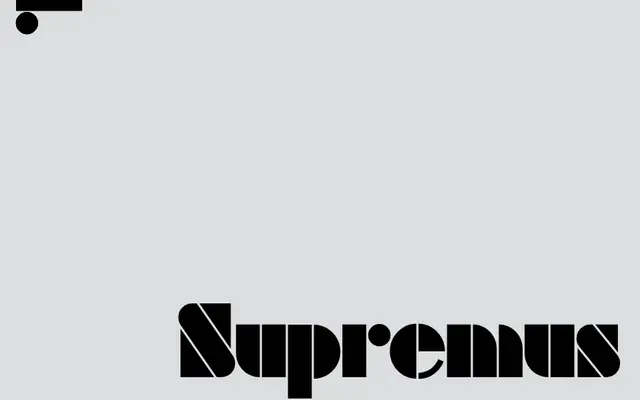
LL Supremus
Lineto · Pablo Desportes · 2024
LL Supremus specimen from Lineto
A strictly geometric, modular stencil display typeface in two cuts, designed by Pablo Desportes as a graphic companion to LL Supreme, drawing on Constructivist and Bauhaus precedents.
Where Futura Black makes optical concessions to legibility, LL Supremus-A strips those back to pure geometry with a narrow 22-unit stencil bridge for maximum impact at large sizes; LL Supremus-B reintroduces Renner's curvature logic with a 44-unit bridge for regular headline use down to smaller display sizes. Both cuts cover Latin, Cyrillic and Greek, and include a set of Schmuck ornaments adapted from original Futura foundry type once donated by Renner to La Cambre art school in Brussels. Kerning throughout is built on multiples of 11 units, ensuring consistent optical balance between the geometric forms.
A strictly geometric, modular stencil display typeface referencing the Futura Black lineage and Constructivist type experiments of the 1920s; its two cuts (A and B) are designed solely for headline and display use, ruling out text categories.